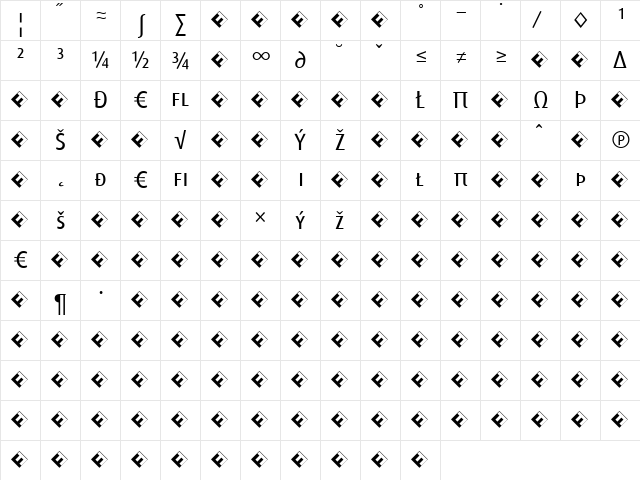
Dax-RegularCapsExp Regular Font Preview
Dax-RegularCapsExp Regular
Dax-RegularCapsExp Regular Font Details
| Foundry | Hans Reichel, published by Fontshop International for the FontFont library |
Design Context for Dax-RegularCapsExp Typeface
Dax-RegularCapsExp is a composed and adaptable typeface that performs quietly and consistently across a wide range of design contexts.